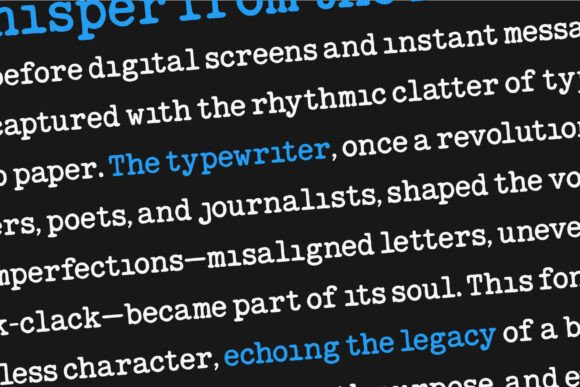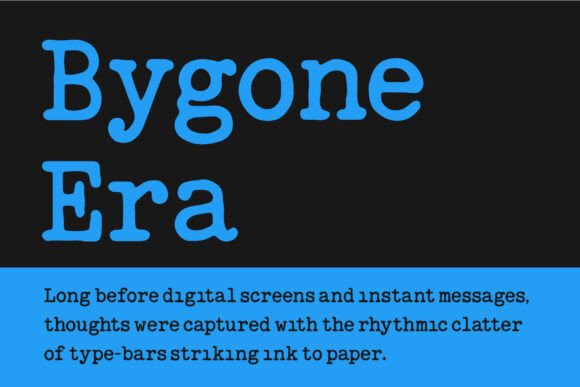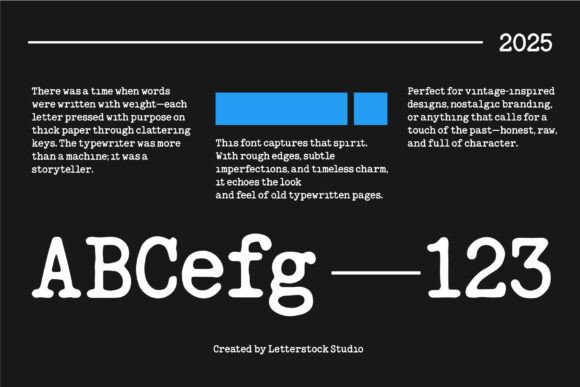
Introduction to Rattle Ink Font
Do you remember the feeling of holding a pen and paper, watching as your thoughts flowed onto the page in a beautiful, imperfect mess? Or perhaps you’ve spent hours pouring over old manuscripts, admiring the imperfections of vintage typewriters? For designers, there’s something special about capturing that essence in our work – and that’s exactly what the Rattle Ink Font does.
With its beautifully imperfect vintage typewriter design, Rattle Ink Font brings a touch of nostalgia to any creative project. Each letter features subtle ink bleeds and slight misalignments, recreating the organic feel of classic typewritten manuscripts. Whether you’re working on a branding project, book cover, or social media post, Rattle Ink Font adds an authentic retro touch that’s sure to captivate your audience.
Key Features of Rattle Ink Font
- High-quality design resource suitable for creative projects, offering a unique and stylish aesthetic.
- Unique characteristics include a distressed, vintage-inspired look, perfect for adding a touch of nostalgia to creative projects.
Honest Review: Rattle Ink Font
I recently had the opportunity to experiment with the Rattle Ink Font, and I must say it’s a great addition to any designer’s toolkit. As a design resource, it’s high quality and perfect for creative projects that require a unique touch.
- ✨ Unique and creative design that sets it apart from other fonts
- ✨ High-quality vectors that can be scaled up or down without losing any detail
- ✨ Transparent background makes it easy to use in complex design compositions
- ⚠️ Limited character set, which may not be suitable for long-form content
- ⚠️ May not be suitable for body text, as it’s more designed for headings and titles
Overall, I’m impressed with the Rattle Ink Font. It’s a great choice for designers looking to add some personality to their creative projects. While it may have some limitations, it’s definitely worth considering for your next design project.
Rattle Ink Font is commonly used in creative projects such as branding, logos, and typography-based designs. It is also suitable for use in presentations, documents, and other visual communications where a high-quality font is required.